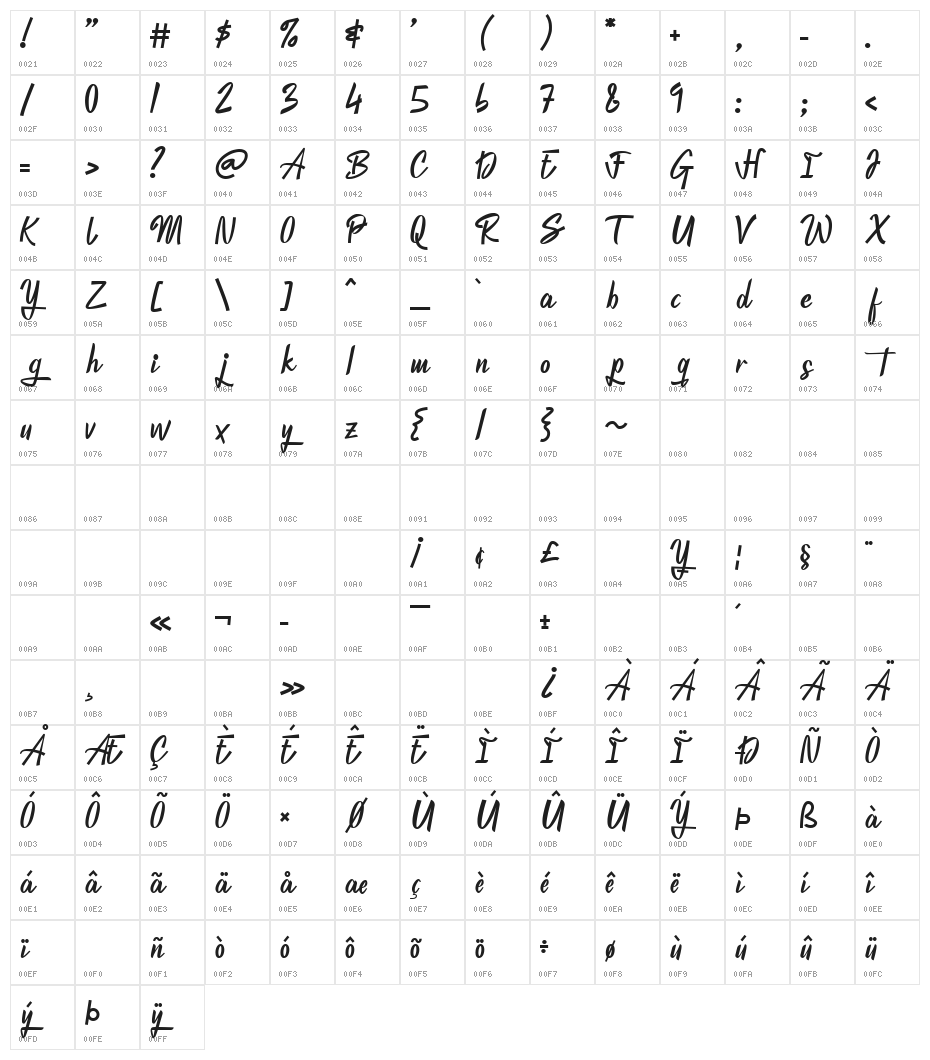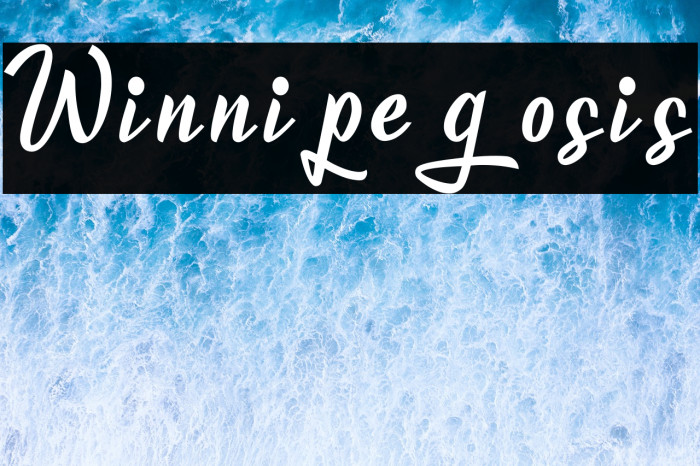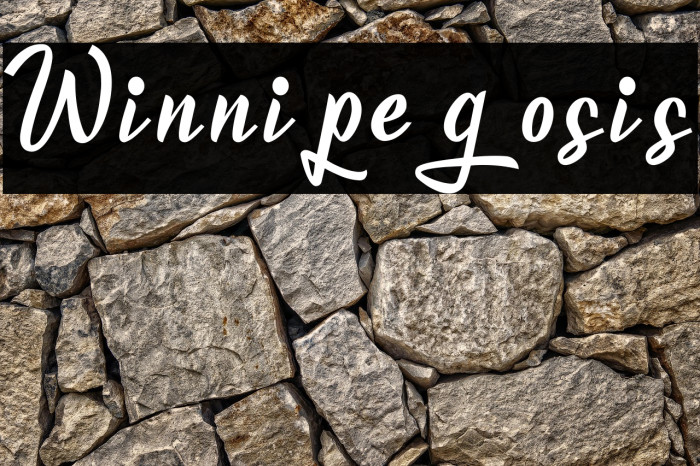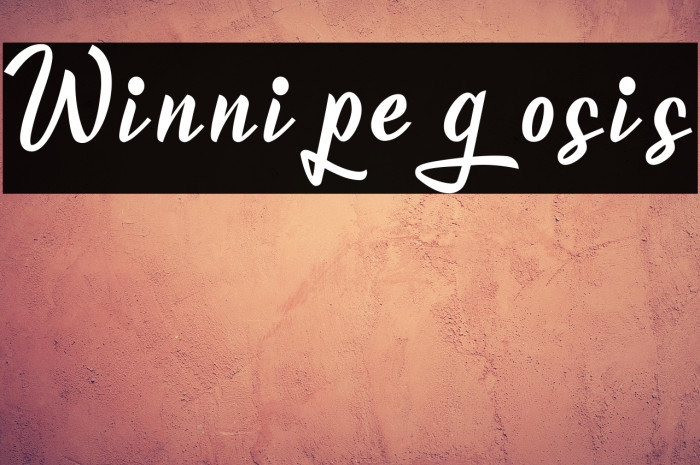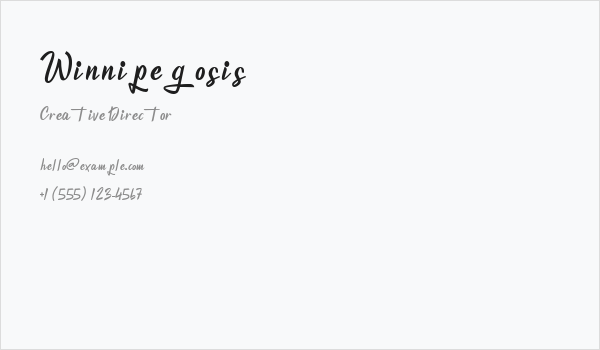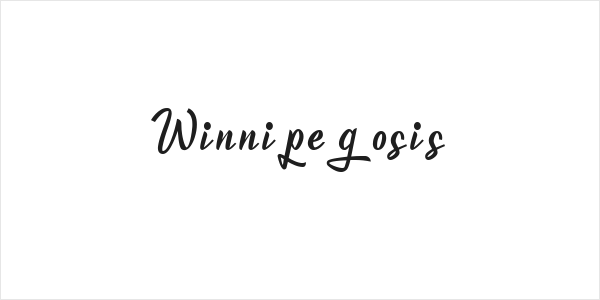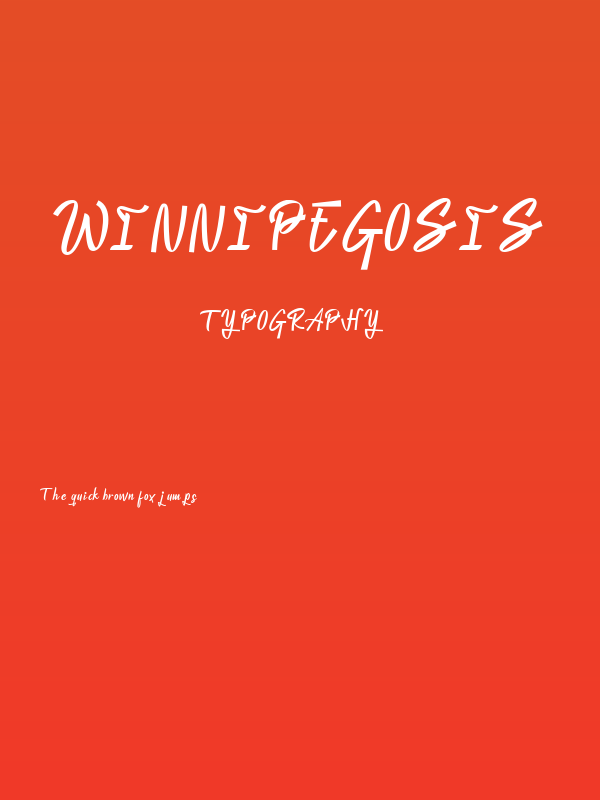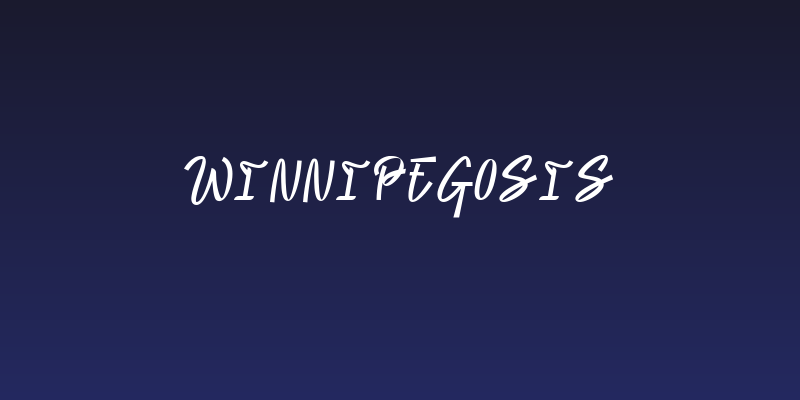
Winnipegosis Font
Winnipegosis Description
This font exhibits a dynamic and expressive style, characterized by its fluid, handwritten appearance. The letters are slightly slanted, adding a sense of motion and energy. The uppercase letters are bold and prominent, while the lowercase letters maintain a consistent flow, enhancing readability. The numerals and special characters follow the same stylistic cues, ensuring a cohesive look across all elements. The strokes vary in thickness, providing a medium contrast that adds depth and interest without compromising legibility. This font is ideal for projects that require a personal touch or a creative flair.
| Overall Style | Expressive, Creative |
| Proposed Projects | Ideal for greeting cards, invitations, branding, and creative projects that require a personal touch. |